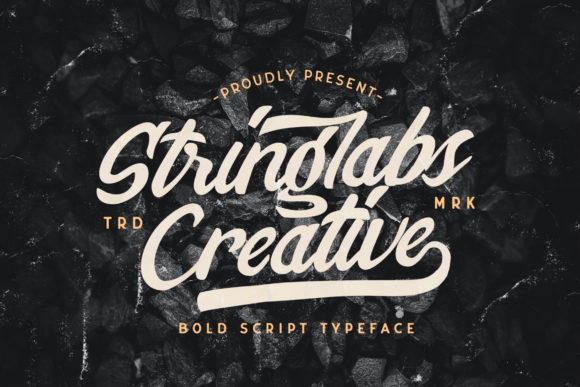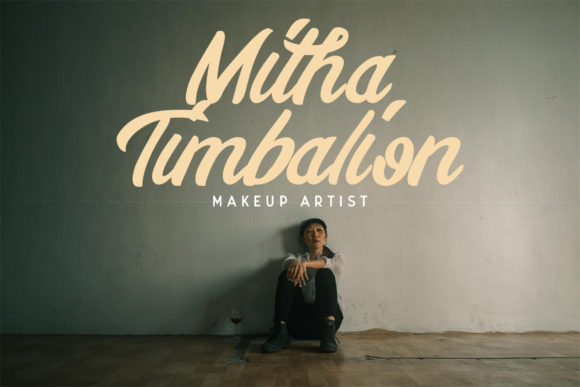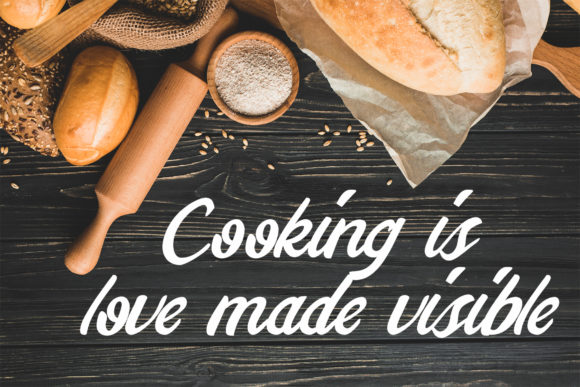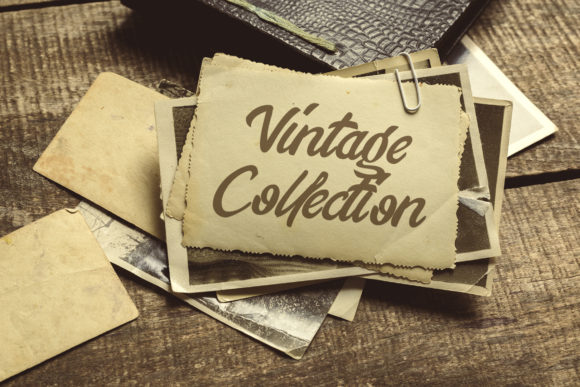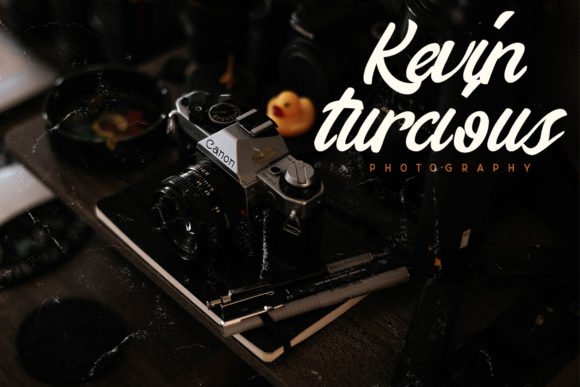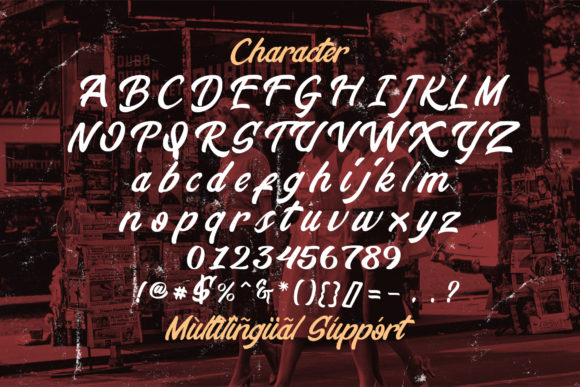
Stringlabs Creative Font
About Stringlabs Creative Font
Stringlabs Creative is inspired by classic typography and brings its own unique style to any design project. This amazing handwritten font is perfect for bold script font lovers, and it’s also perfect for brands such as: barbershop, motorcycle club, clothing, logo brand, coffee shop, shoe brands, and much more.